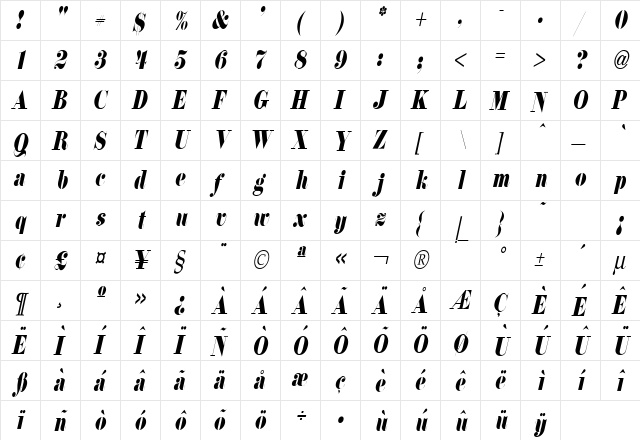
Floral Condensed Italic Font Preview
Design Context for Floral Condensed Typeface
Floral Condensed is a composed and adaptable typeface that performs quietly and consistently across a wide range of design contexts. The dynamic lean of this cut emphasises speed and emphasis in any layout. The condensed width makes it efficient for tight spaces without sacrificing legibility.
Pro Tip: Try Floral Condensed for annotation and caption copy alongside an upright companion — the contrast in angle creates a dynamic but ordered typographic system.